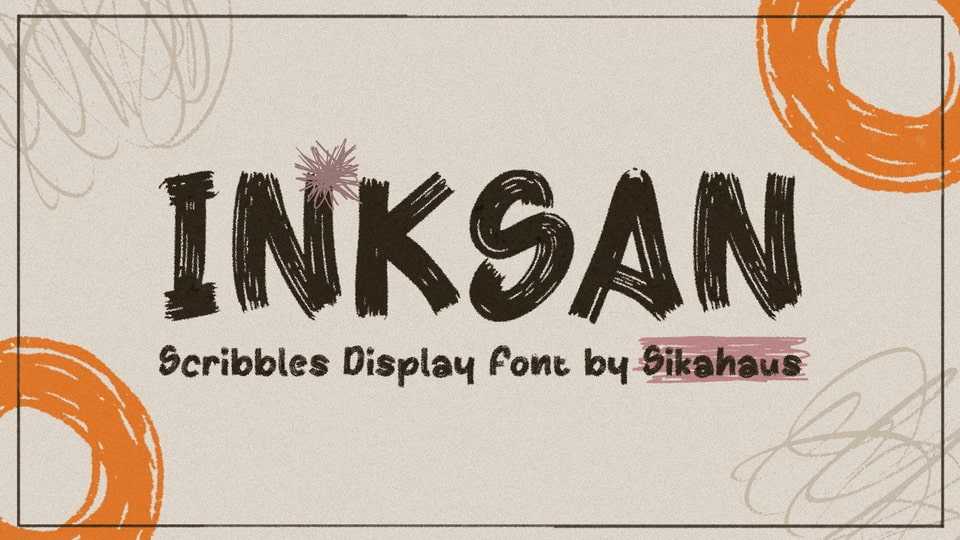
Download Inksan font, your new go-to display typeface with a bold, scribbled personality! It’s got that messy, hand-drawn charm that’s perfect for designs with an edgy, urban, or rebellious feel.
Designer: Sikahaus Studio